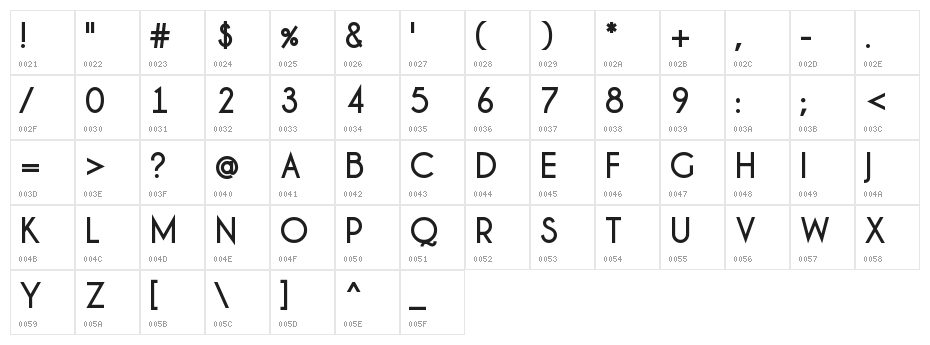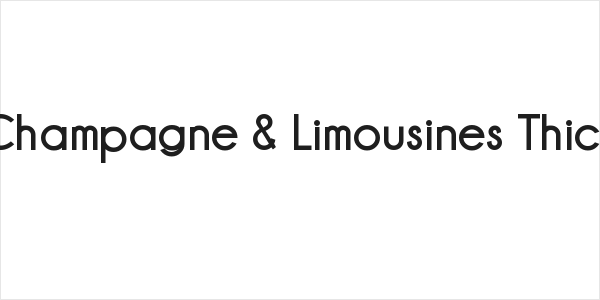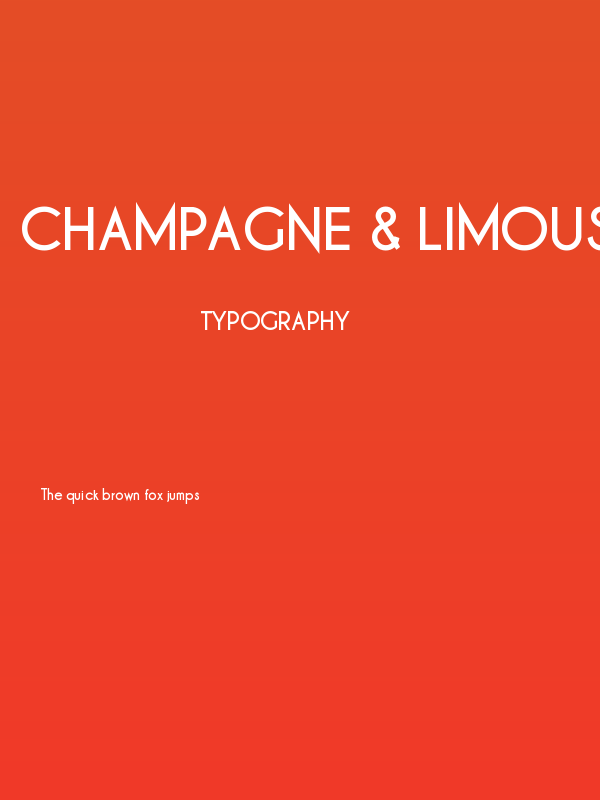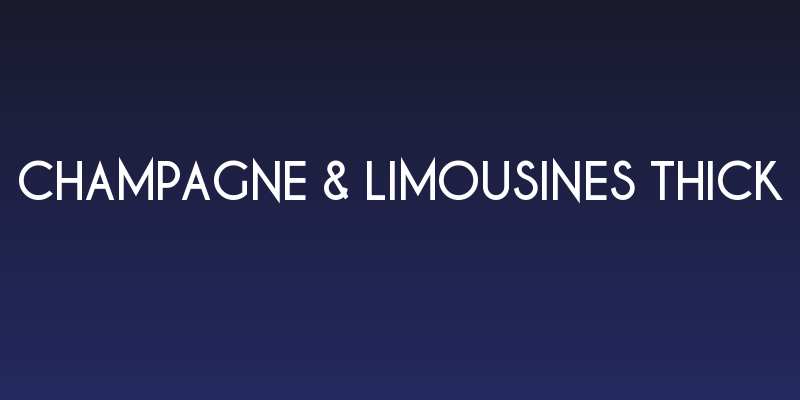
Champagne & Limousines Thick Font
Champagne & Limousines Thick Description
This font features a clean and modern sans-serif style with a bold weight. The characters are well-defined with smooth curves and straight lines, providing a contemporary and professional appearance. The uppercase letters are slightly taller than the lowercase, maintaining a consistent width throughout. The numerals are clear and easy to read, matching the overall aesthetic of the alphabet. Special characters are included, offering versatility for various uses. The font's simplicity and clarity make it suitable for a wide range of applications, from digital to print media.